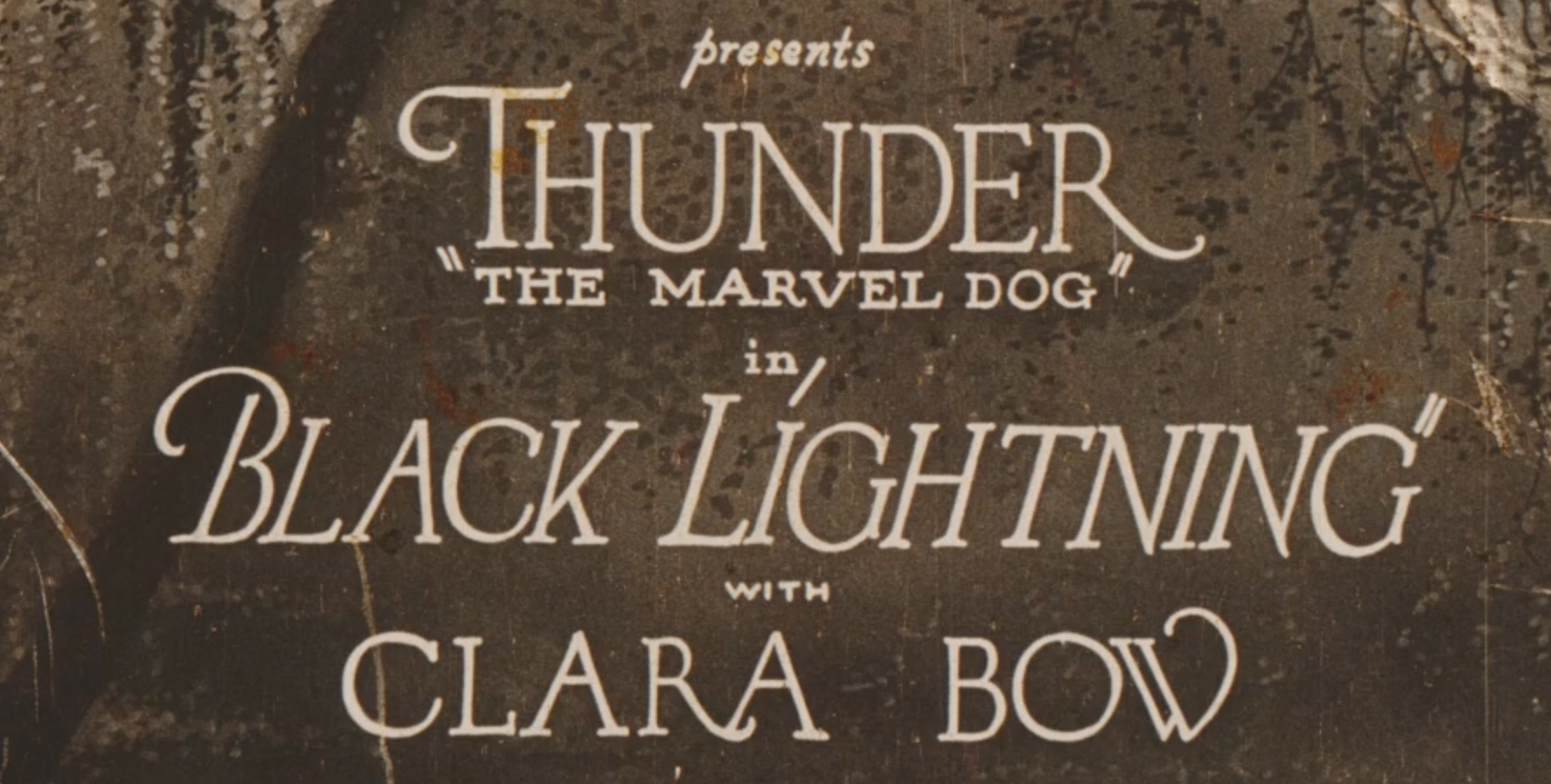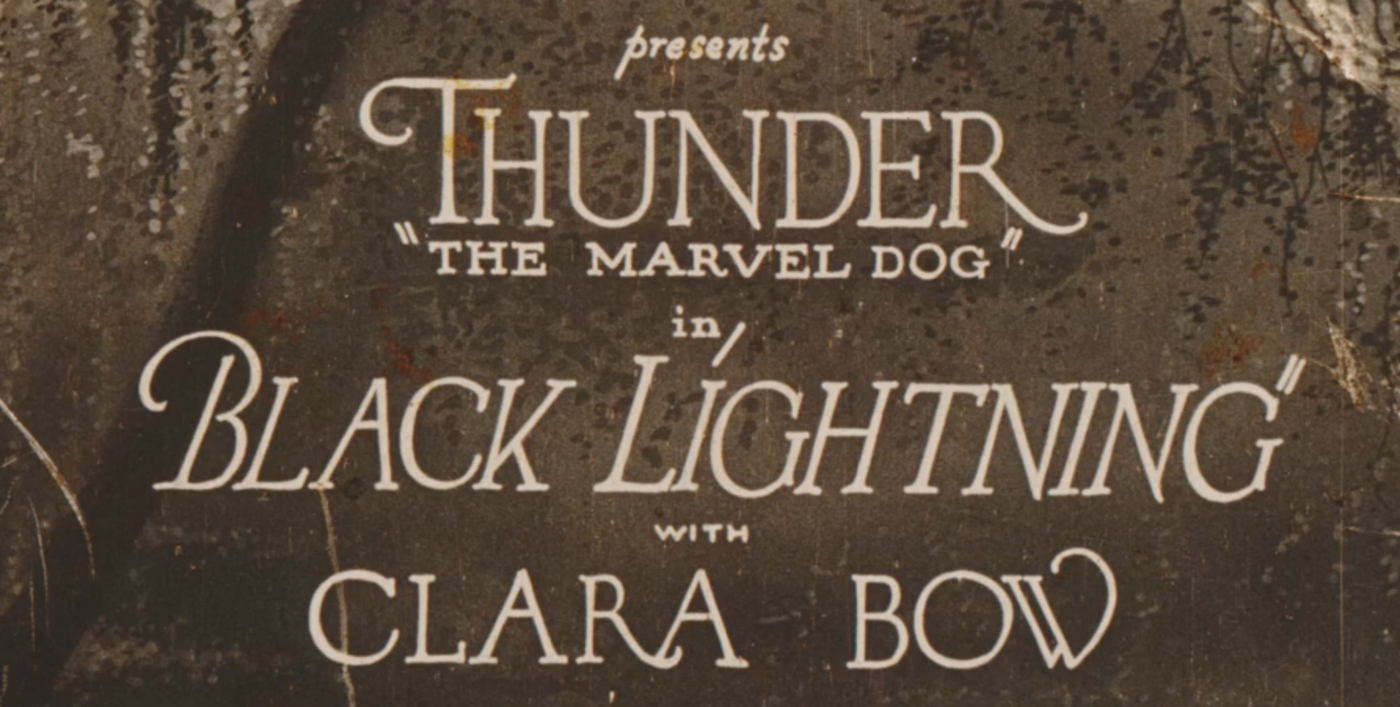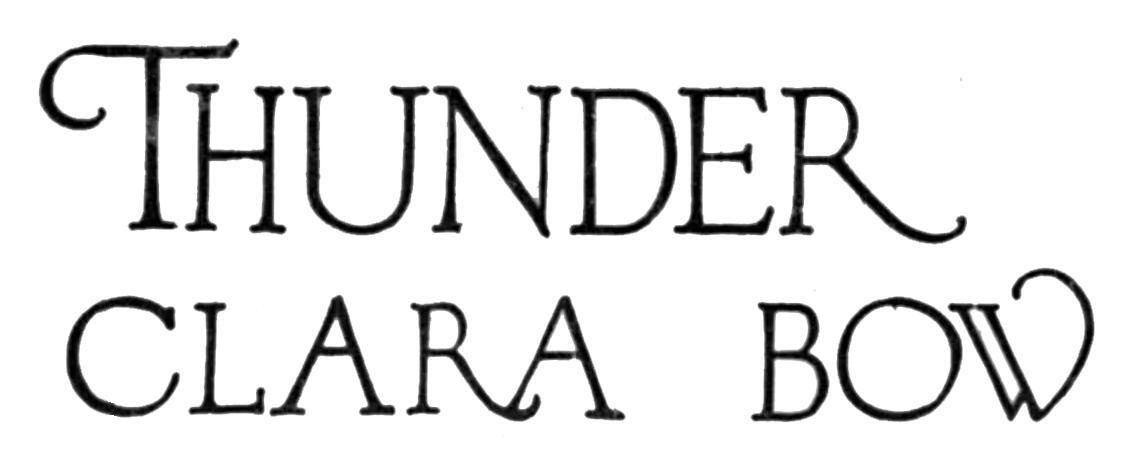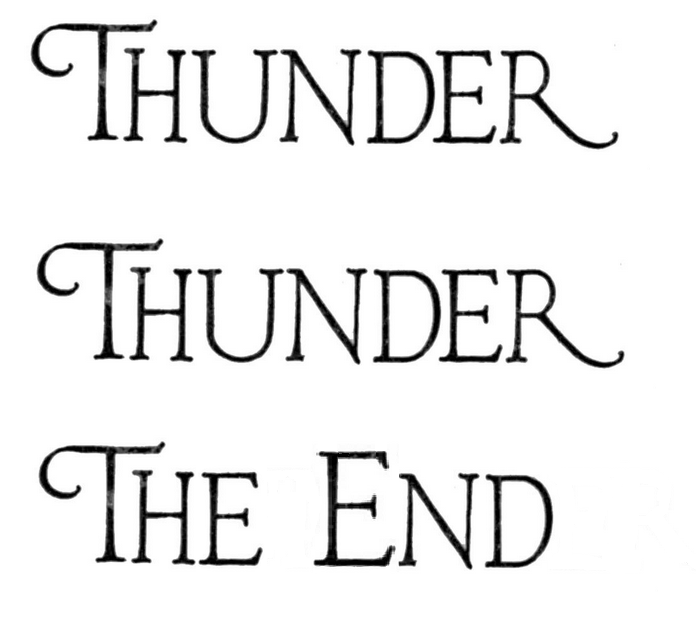
Film title for "Black Lightning"
I am with a non-profit organization and we have a project to restore the 1924 film, "Black Lightning". We need to match, or find a close approximation, to the typeface used in the opening title. Of course these titles were not originally created with computer fonts but very often in cases like this we can find a match or at least something very close in modern fonts. What we need in this case is something that matches the names "THUNDER" and "CLARA BOW" in the attached sample from the film's opening title.
As a bonus, if there is a match also for the italicized "BLACK LIGHTING" we'd love to know.
Solved by SilentRobert
This looks like drawn by hand. Look at the 'A's in 'CLARA'. These old films had all text  usually hand painted. I think better approach would be to vectorize the text.
Yes indeed, these titles were created by staff artists and then photographed. Definitely not mechanical type. I'm just hoping for an ID that's reasonably close. The only surviving copy of the film does not have a The End title, so we need to recreate it. So, in reality all we need are D, E, H, N, and T.
The best matches I could find are Howlett and Brandywine but I feel certain that experts on this forum could do those one better.
As others have pointed out, the original titles weren’t created using typefaces at all, but were actually hand lettered.
Unfortunately, I'm not finding that W anywhere in a digital typeface.
Letterhead Fonts Silent Movie might work for you.
Oooh, thanks very much. Silent Movie could do the trick - especially considering the limited number of glyphs we need.
Luckily word 'THUNDER' contains 'T', 'H', 'E', and also 'E', 'N', 'D'.
10 minutes with Windows Paint: